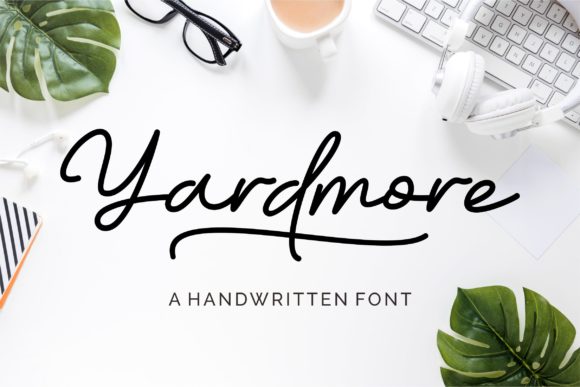
Journey into the Realm of Enchanting Elegance with Yardmore Font – The Epitome of Script Finesse
Welcome to the world of Yardmore Font, where beauty and elegance dance harmoniously to create a script font that captivates the senses. This enchanting creation by awansenja.type embodies the essence of refinement, adding an irresistible charm to every project it graces.
With Yardmore Font, you hold the key to unlocking a world of design possibilities. Whether crafting heartfelt wedding invitations, expressing gratitude with thank you cards, or capturing the essence of life's special moments with quotes and greeting cards, this font becomes your artistic ally, transforming ordinary words into visual masterpieces.
Step into the realm of branding and identity with Yardmore Font, as it effortlessly elevates logos and business cards, leaving a lasting impression that resonates with grace and sophistication. Its versatility extends to every creative endeavor, seamlessly adapting to a myriad of design styles, from classic to contemporary.
Unleash the Power of Characters: A Symphony of Elegance
Yardmore Font is a treasure trove of exquisite characters, each meticulously crafted to exude personality and charm. Its varying baseline adds a touch of playfulness, while the smooth lines and gorgeous glyphs create a visual symphony that delights the eyes.
Explore the Realm of Swashes: A Flourish of Artistic Expression
With Yardmore Font's swashes, you'll discover a world of infinite possibilities. These artistic flourishes lend an aura of elegance to your designs, adding a touch of whimsy and individuality. Accessing these enchanting elements is effortless, thanks to the font's PUA encoding, ensuring a seamless creative experience.
Experience the Magic of Alternates: A Tapestry of Visual Delights
Yardmore Font's stunning alternates open up a new dimension of creativity, allowing you to explore a kaleidoscope of visual variations. Experiment with different letterforms, unleashing your imagination, and crafting designs that exude a unique and captivating charm.
Immerse Yourself in the Realm of Yardmore Font: A Haven of Endless Possibilities
Yardmore Font is more than just a collection of characters; it's an invitation to embark on a creative journey, a gateway to a world where beauty and elegance converge. Its versatility knows no bounds, making it the perfect choice for a vast array of design projects.
From the delicate charm of wedding invitations to the sophistication of business cards, from the heartfelt warmth of thank you cards to the profound eloquence of quotes, Yardmore Font becomes your trusted companion, transforming your creative vision into a tangible reality.
So, dive into the enchanting world of Yardmore Font, let your creativity soar, and experience the joy of creating designs that captivate, inspire, and leave an enduring legacy of beauty. Embrace the allure of Yardmore Font and unlock the gateway to a world of design excellence.